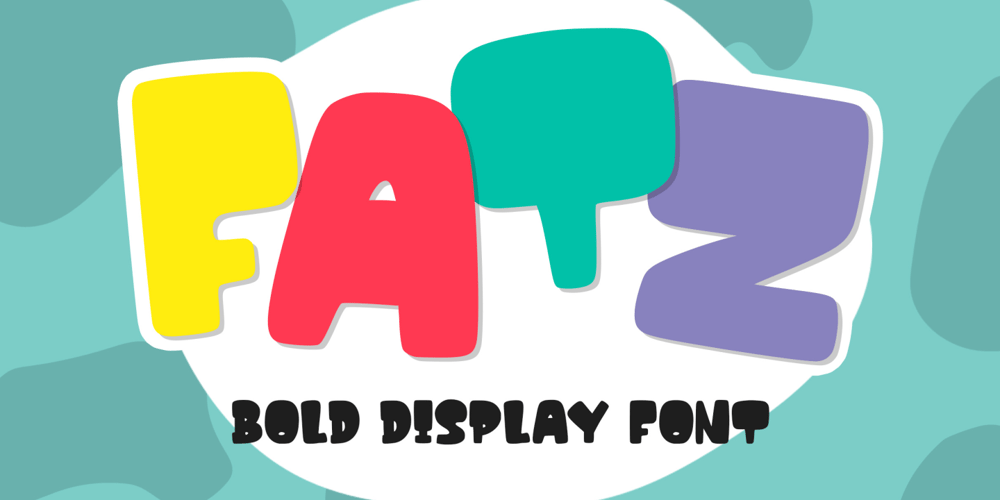
Fatz Font Family was designed by Good Java and published by Good Java Studio. Fatz contains 1 styles and family package options. Fatz is the perfect font for all your fun designs. The main font file is equipped with ordinary characters. Everything is made with the bold and smooth brush, and everything is the same size as Hello Balls, so you can be sure they will work well together! It is suitable for you to use in making t-shirt design, quote, label, packaging, logo type, or long writing. Because we have compiled kerning and matrices that are tailored to your needs.